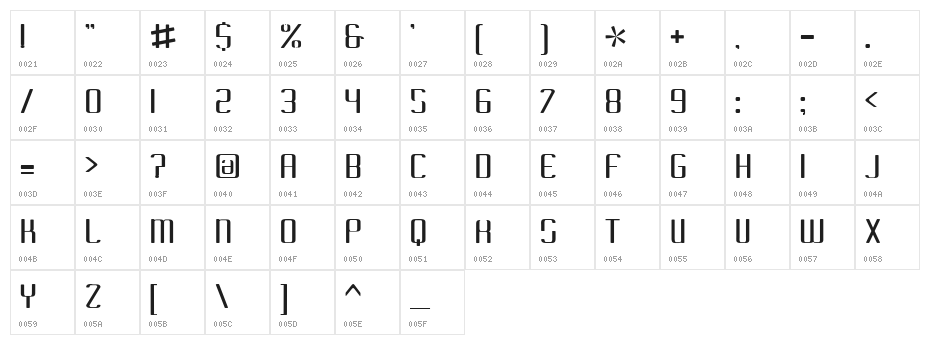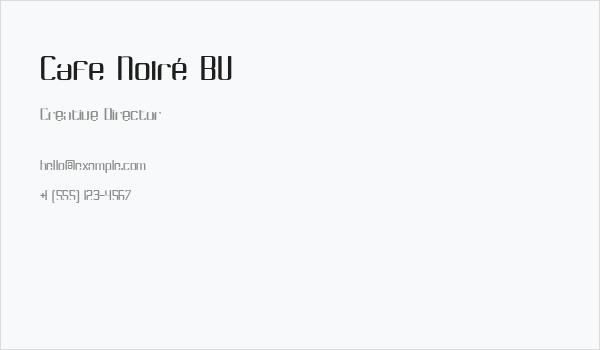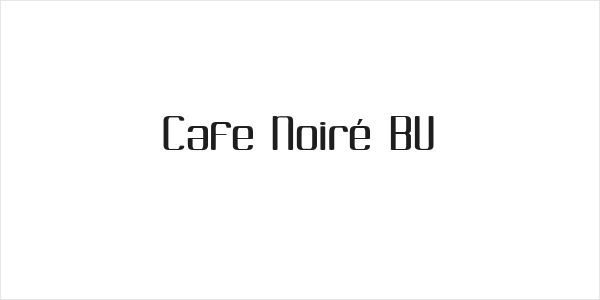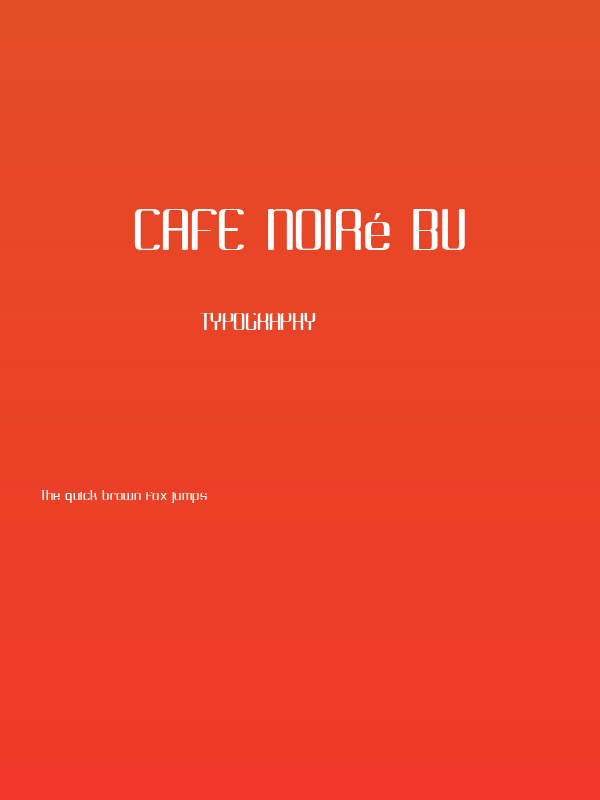
Cafe Noiré BV Font
Cafe Noiré BV Description
This font features a modern and sleek design with rounded edges and a geometric structure. The uppercase and lowercase letters maintain a consistent height, creating a uniform appearance. The numerals are distinct and align well with the overall style, while the special characters complement the font's clean aesthetic. The design is minimalistic yet bold, making it suitable for various applications that require a contemporary look.
| Use Case | Headlines, Logos, Digital Media |
| Proposed Projects | Ideal for branding, advertising, and digital media projects that require a modern and clean aesthetic. |